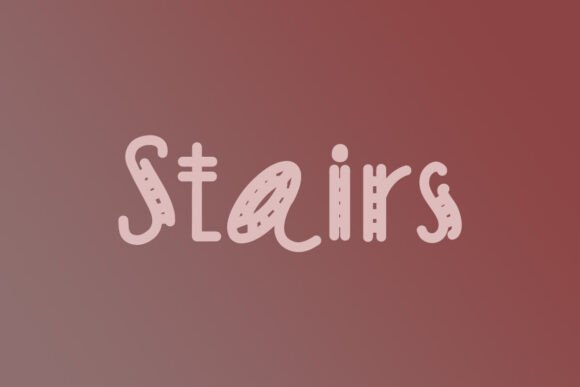
Stairs Font: A Cute and Charming Script Font to Elevate Your Designs
Are you looking for a font that can add a touch of whimsy and charm to your designs? Look no further than Stairs Font, a beautiful script font that is sure to brighten up any project. With its unique and quirky style, Stairs Font is the perfect choice for designers who want to add a bit of personality to their work.
What is Stairs Font?
Stairs Font is a script font that is designed to be both cute and charming. Its whimsical style makes it perfect for use in a variety of design projects, from invitations and greeting cards to posters and social media graphics. The font features flowing lines and unique letterforms that give it a quirky and playful feel.
Key Features of Stairs Font
So, what makes Stairs Font so special? Here are just a few of its key features:
- Cute and charming design: Stairs Font has a unique and charming design that is sure to capture the attention of your audience.
- Whimsical style: The font’s whimsical style makes it perfect for use in a variety of design projects, from playful posters to sweet invitations.
- Unique letterforms: Stairs Font features unique letterforms that give it a quirky and playful feel.
- Easy to read: Despite its playful style, Stairs Font is easy to read, making it perfect for use in both print and digital designs.
Uses for Stairs Font
Stairs Font is a versatile font that can be used in a variety of design projects. Here are just a few ideas to get you started:
- Invitations and greeting cards: Stairs Font is perfect for use in invitations and greeting cards, where its whimsical style can add a touch of personality to your designs.
- Posters and flyers: The font’s bold and playful style makes it perfect for use in posters and flyers, where it can help to grab the attention of your audience.
- Social media graphics: Stairs Font is also great for use in social media graphics, where its unique style can help to make your posts stand out.
- Branding and packaging: If you’re looking for a font that can add a touch of whimsy to your brand, Stairs Font is a great choice.
Why Choose Stairs Font?
So, why should you choose Stairs Font for your next design project? Here are just a few reasons:
- Unique style: Stairs Font has a unique and charming style that is sure to set your designs apart.
- Versatile: Stairs Font is a versatile font that can be used in a variety of design projects.
- High-quality design: The font is designed to high standards, ensuring that it looks great in any design.
Tips for Using Stairs Font
Here are a few tips for using Stairs Font in your designs:
- Use it sparingly: While Stairs Font is a beautiful font, it can be overwhelming if used too much. Use it sparingly to add a touch of whimsy to your designs.
- Pair it with other fonts: Stairs Font looks great when paired with other fonts. Try pairing it with a bold sans-serif font for a contrasting look.
- Experiment with different colors: Stairs Font looks great in a variety of colors. Experiment with different colors to find the one that works best for your design.
Stairs Font is a beautiful script font that is sure to add a touch of whimsy and charm to your designs. With its unique and quirky style, it’s perfect for use in a variety of design projects, from invitations and greeting cards to posters and social media graphics. So why not give Stairs Font a try and see the difference it can make in your designs?
- What is Stairs Font?: Stairs Font is a script font that is designed to be both cute and charming.
- Is Stairs Font easy to read?: Yes, Stairs Font is easy to read, making it perfect for use in both print and digital designs.